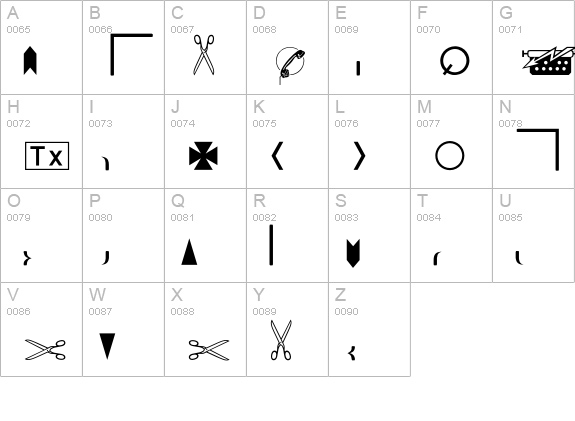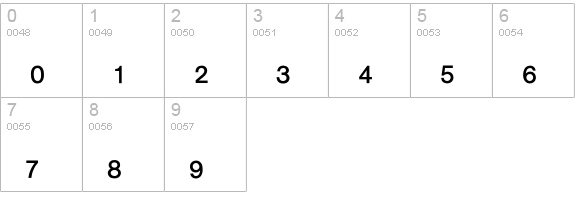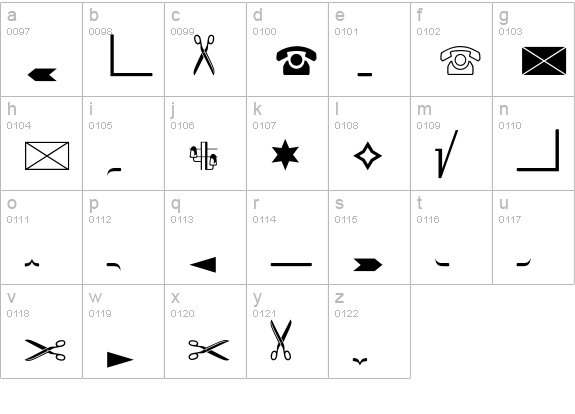
Commercial Pi 1 Font Details
Commercial Pi 1 font is a versatile and stylish typeface that exudes professionalism and sophistication. With its clean lines and elegant design, this font is perfect for a wide range of commercial projects, from branding and advertising to packaging and signage. What sets Commercial Pi 1 font apart is its unique blend of classic and contemporary elements, making it suitable for both traditional and modern designs. Its sleek and professional appearance makes it an ideal choice for businesses looking to make a strong and lasting impression. Best of all, Commercial Pi 1 font is available for free download at FontsMarket.com. This means you can easily access this high-quality font without any cost, making it a valuable addition to your design toolkit. Don't miss out on the opportunity to elevate your projects with the timeless elegance of Commercial Pi 1 font.